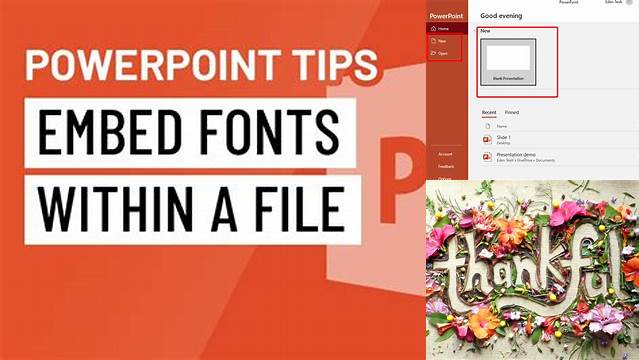
Accessing Fonts In PowerPoint: A Comprehensive Guide
Hey guys! Ever wondered how to jazz up your PowerPoint presentations with the perfect font? Or maybe you've installed some cool new fonts and are scratching your head trying to figure out how to use them in PowerPoint? Well, you're in the right place! This guide is your ultimate resource for everything fonts in PowerPoint. We'll cover how to find installed fonts, troubleshoot common font issues, and even give you some tips on choosing the best fonts for your presentations. Let's dive in!
1. Understanding PowerPoint Font Basics
Before we get into the nitty-gritty, let's cover the basics. When we talk about fonts in PowerPoint, we're referring to the different typefaces you can use to style your text. Fonts aren't just about making your slides look pretty; they also play a crucial role in readability and conveying your message effectively. A well-chosen font can make your presentation look professional and engaging, while a poorly chosen one can make it look amateurish and hard to read. So, understanding the fundamentals is key. The available fonts in PowerPoint come from two primary sources: the fonts that are pre-installed with your operating system (like Windows or macOS) and the fonts you've installed yourself. When you install a new font on your computer, it generally becomes available to all applications, including PowerPoint. This means you have a wide range of options to choose from! However, it also means that managing your fonts and understanding how they work within PowerPoint is essential for a smooth presentation experience. We'll explore all of this in detail, so you'll be a font pro in no time!
2. Locating Installed Fonts Within PowerPoint
Alright, so how do you actually see what fonts are available in PowerPoint? It's super easy! First, open up your PowerPoint presentation. Then, select the text box or text you want to change the font for. Next, go to the "Home" tab on the ribbon, and look for the "Font" group. You'll see a dropdown menu there with the current font selected. Click on that dropdown, and bam! A long list of fonts will appear. This list shows all the fonts that are currently installed on your system and available for use in PowerPoint. You can scroll through the list and preview how each font looks with your selected text. This is where the fun begins! Experiment with different fonts to see what works best for your presentation. Remember, choosing the right font is crucial, so take your time and find one that fits the tone and style of your content. And don't worry, we'll talk more about font selection later on.
3. Exploring the Font Dropdown Menu
Let's take a closer look at that font dropdown menu, shall we? It's not just a simple list of fonts; there are a few other things you might find useful. At the top of the menu, you'll usually see a section for "Theme Fonts." These are the fonts that are associated with your presentation's theme. If you change the theme of your presentation, these fonts will automatically update, giving your slides a consistent look. Below the theme fonts, you'll find the main list of all installed fonts, arranged alphabetically. You might also see a section for "Recently Used Fonts." This is super handy because it keeps track of the fonts you've used recently, so you don't have to scroll through the entire list to find them again. One important thing to note: the font names are displayed in their respective typefaces, giving you a quick visual preview of each font. This makes it much easier to choose the right one at a glance. So, take a moment to familiarize yourself with the font dropdown menu – it's your gateway to a world of font possibilities!
4. Understanding System Fonts vs. Custom Fonts
As we mentioned earlier, there are two main types of fonts you'll encounter: system fonts and custom fonts. System fonts are the ones that come pre-installed with your operating system. These fonts are generally safe to use in presentations because they're likely to be available on most computers. This means your presentation will look the same no matter where you open it. Custom fonts, on the other hand, are fonts that you've installed yourself. These can be downloaded from various websites or come bundled with design software. Custom fonts can add a unique touch to your presentations, but there's a catch: if you use a custom font and then open your presentation on a computer that doesn't have that font installed, PowerPoint will substitute it with a default font. This can mess up your formatting and make your presentation look different than you intended. So, if you're using custom fonts, it's crucial to embed them in your presentation or convert your text to images to ensure consistency. We'll talk more about these solutions later on.
6. Troubleshooting Font Display Issues
Sometimes, things don't go quite as planned. You might encounter situations where fonts don't display correctly in PowerPoint. Maybe a font looks different than you expected, or perhaps it's not showing up at all. Don't panic! There are a few common causes for these issues, and we can troubleshoot them. One common problem is font substitution, which we touched on earlier. If a font isn't installed on a computer, PowerPoint will replace it with a similar font. This can lead to formatting issues and an inconsistent look. Another issue can arise from corrupted font files. If a font file is damaged, it might not display correctly. In this case, try reinstalling the font. Sometimes, conflicts between fonts can also cause problems. If you have multiple versions of the same font installed, or if two fonts have similar names, they might clash. Restarting PowerPoint or your computer can often resolve these conflicts. If you're still having trouble, you might need to dive deeper into your system's font management settings. We'll cover some advanced troubleshooting techniques later on.
7. Embedding Fonts in Your PowerPoint Presentation
Okay, so you've chosen some fantastic custom fonts for your presentation, but you're worried about them not displaying correctly on other computers. What's the solution? Embedding fonts! Embedding fonts means including the font files within your PowerPoint presentation itself. This ensures that the fonts will always be available, regardless of whether they're installed on the computer where the presentation is being viewed. To embed fonts in PowerPoint, go to "File" > "Options" > "Save." At the bottom of the "Save" tab, you'll see a section called "Preserve fidelity when sharing this presentation." Check the box that says "Embed fonts in the file." You'll have two options: "Embed only the characters used in the presentation" and "Embed all characters." The first option will make your file size smaller, but it might not allow for editing the text later on. The second option will embed the entire font, ensuring full editing capabilities. Choose the option that best suits your needs. Embedding fonts is a lifesaver when using custom fonts, so make sure to do it!
8. Converting Text to Outlines (or Images) as an Alternative
If embedding fonts isn't an option, or if you're still concerned about font compatibility, you can try converting your text to outlines or images. This effectively turns your text into vector graphics, so it no longer relies on the font files. This guarantees that your text will look the same on any computer, regardless of the fonts installed. To convert text to outlines in PowerPoint, you'll need to use a third-party tool or a graphics editor like Adobe Illustrator. First, copy your text from PowerPoint and paste it into the other program. Then, use the program's outline or create outlines feature to convert the text. Finally, save the outlined text as an image (like a PNG or SVG) and insert it back into your PowerPoint presentation. Converting text to images is even simpler. Just take a screenshot of your text and insert the image into your slide. However, keep in mind that converting text to outlines or images will make it non-editable within PowerPoint, so make sure you're happy with the final result before you do this.
9. Choosing the Right Fonts for Your Presentation Style
Font selection isn't just about aesthetics; it's about communication. The fonts you choose can significantly impact how your audience perceives your message. So, how do you choose the right fonts for your presentation style? First, consider your audience and the tone of your presentation. Are you giving a formal business presentation, or a more casual and creative one? For formal presentations, stick to classic and professional fonts like Times New Roman, Arial, or Calibri. For more creative presentations, you can experiment with different fonts, but make sure they're still readable. Speaking of readability, that's another key factor. Choose fonts that are easy to read from a distance, even on a large screen. Avoid overly decorative or script fonts for large blocks of text. Stick to clean and simple fonts for body text, and use more decorative fonts sparingly for headings or titles. Also, consider using a limited number of fonts in your presentation – two or three is usually enough. This will help maintain a consistent and professional look. Finally, don't be afraid to experiment and see what works best for you!
10. Font Pairing: Combining Fonts Effectively
Using multiple fonts in a presentation can add visual interest, but it's crucial to do it right. The secret is font pairing – choosing fonts that complement each other. A good rule of thumb is to pair a sans-serif font (like Arial or Helvetica) with a serif font (like Times New Roman or Garamond). Sans-serif fonts tend to look more modern and clean, while serif fonts have a more traditional and elegant feel. Pairing them together can create a nice balance. When choosing fonts to pair, look for fonts that have different weights (bold, regular, light) and styles (italic, condensed, extended). This will give you more options for creating visual hierarchy in your slides. For example, you might use a bold sans-serif font for headings and a regular serif font for body text. Online tools like FontPair and Google Fonts can help you find great font combinations. Experiment with different pairings to see what looks best for your presentation. Remember, the goal is to create a visually appealing and readable presentation, so choose fonts that work together harmoniously.
11. Using Web Fonts in PowerPoint
Web fonts, like those from Google Fonts, offer a vast library of typefaces that you can use in your PowerPoint presentations. While you can download and install these fonts on your computer, there's also a way to use them directly in PowerPoint through add-ins. Some add-ins allow you to browse and insert web fonts into your slides without having to install them. This can be super convenient, especially if you're working on a presentation collaboratively and want to ensure everyone has access to the same fonts. However, keep in mind that using web fonts in PowerPoint can sometimes lead to compatibility issues if the presentation is opened on a computer without the add-in or internet access. So, if you're using web fonts, it's a good idea to embed them in your presentation or convert your text to outlines as a backup. Web fonts are a fantastic resource for expanding your font options, but it's essential to use them wisely.
12. Understanding Font Licensing and Usage Rights
Before you start downloading and using fonts willy-nilly, it's important to understand font licensing and usage rights. Just like software and other creative works, fonts are protected by copyright. This means that you can't just use any font you find for any purpose. Fonts come with different types of licenses, which dictate how you can use them. Some fonts are free for personal and commercial use, while others are only free for personal use. Some fonts require you to purchase a license for commercial use. It's crucial to read the license agreement for each font you download to make sure you're using it legally. Using a font without the proper license can result in legal consequences, so it's not worth the risk. Websites like Google Fonts clearly state the license for each font, making it easy to choose fonts that you can use freely. When in doubt, it's always better to err on the side of caution and choose fonts with a permissive license or purchase a commercial license.
13. Finding Free Font Resources Online
Speaking of font licensing, let's talk about where to find free fonts online! The good news is that there are tons of websites that offer high-quality fonts for free, both for personal and commercial use. Google Fonts is one of the most popular resources, offering a vast collection of open-source fonts that you can use in your presentations and other projects. Font Squirrel is another excellent option, with a curated selection of free fonts that are licensed for commercial use. DaFont is a large archive of fonts, but it's essential to check the license for each font before using it. The League of Movable Type is a repository of free, high-quality fonts that are designed to be used in a variety of contexts. These are just a few examples; there are many other websites where you can find free fonts. Remember to always check the license before using a font, and be aware that some free fonts may have limitations on their usage. But with a little research, you can build a fantastic font library without spending a dime.
14. Exploring Paid Font Options and Foundries
While there are many great free fonts available, sometimes you need something extra special. That's where paid fonts come in. Paid fonts often offer more unique designs, better quality, and more extensive character sets than free fonts. If you're looking for a professional and polished look for your presentations, investing in a few high-quality fonts can be a worthwhile investment. There are many reputable font foundries (companies that design and sell fonts) out there, each with its own distinct style. Adobe Fonts (formerly Typekit) is a popular option, offering a vast library of fonts that are included with an Adobe Creative Cloud subscription. MyFonts is a large marketplace where you can purchase fonts from various foundries. Linotype is a classic font foundry with a long history of designing iconic typefaces. Hoefler & Co. is known for its elegant and versatile fonts. These are just a few examples; there are many other excellent font foundries to explore. When choosing paid fonts, consider your budget, your design needs, and the specific style you're looking for. A well-chosen paid font can elevate your presentations to the next level.
15. Managing Your Font Library Effectively
As your font library grows, it can become challenging to keep track of everything. That's why it's important to manage your fonts effectively. Here are a few tips: First, create a system for organizing your fonts. You might want to group them by style (serif, sans-serif, script), by project, or by license. Use folders to keep your font files organized on your computer. Consider using a font management tool, like FontBase or NexusFont, to help you manage your fonts. These tools allow you to preview fonts, activate and deactivate them, and organize them into collections. This can be particularly useful if you have a large font library. Regularly review your font library and remove any fonts that you no longer need. This will help keep your system clean and prevent font conflicts. Back up your font library regularly to protect against data loss. Managing your fonts effectively will save you time and headaches in the long run, allowing you to focus on creating amazing presentations.
16. Font File Formats: TTF vs. OTF
When you download a font, you'll typically encounter two file formats: TTF and OTF. TTF stands for TrueType Font, and OTF stands for OpenType Font. Both are popular font formats, but there are some key differences. TrueType fonts were developed by Apple and Microsoft in the late 1980s and became the standard font format for many years. OpenType fonts are a more recent development, jointly created by Microsoft and Adobe. OpenType fonts offer several advantages over TrueType fonts, including support for a larger character set, more advanced typographic features (like ligatures and alternate characters), and better cross-platform compatibility. In general, OTF is considered the more modern and versatile format. However, both TTF and OTF fonts work well in PowerPoint, so you don't necessarily need to choose one over the other. The main thing to consider is the specific features you need and the compatibility of the font with your system and software. If you have a choice, OTF is generally the better option, but TTF fonts are still perfectly usable.
17. Font Caching and Performance Considerations
PowerPoint uses font caching to improve performance. Font caching means that PowerPoint stores font information in memory so that it can access it quickly when needed. This speeds up the rendering of text and makes your presentation run more smoothly. However, font caching can sometimes cause issues. If you make changes to a font (like installing a new version or modifying the font file), PowerPoint might not recognize the changes immediately because it's using the cached version. To clear the font cache in Windows, you can try restarting your computer or restarting the Windows Font Cache Service. On macOS, you can use Font Book to resolve font conflicts and clear the cache. In general, font caching is a good thing for performance, but it's important to be aware of its potential side effects. If you're experiencing font-related issues in PowerPoint, clearing the font cache can often resolve the problem.
18. Accessibility Considerations When Choosing Fonts
When choosing fonts for your presentations, it's crucial to consider accessibility. Accessibility means making your presentation usable by people with disabilities, including visual impairments. Choosing the right fonts can significantly improve the readability of your slides for everyone, but especially for people with visual impairments. Here are a few tips: Use fonts with clear and simple shapes. Avoid overly decorative or script fonts, as they can be difficult to read. Choose fonts with a high x-height (the height of lowercase letters like